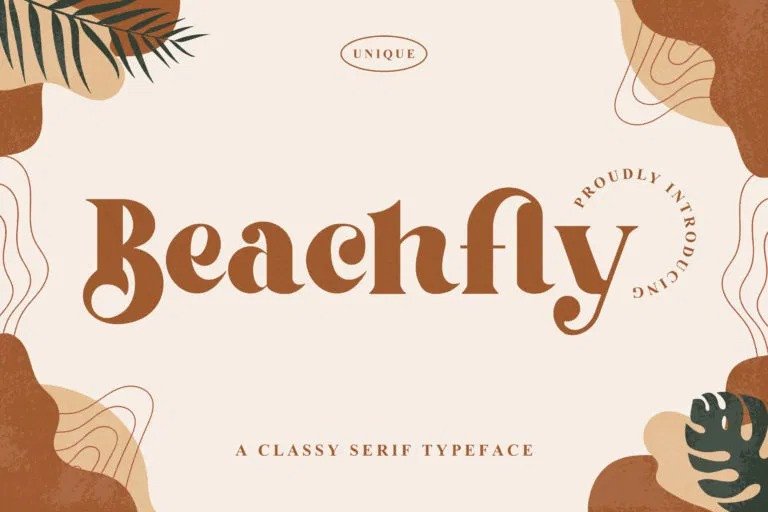
Beachfly Font
Beachfly Serif Font is classy display typeface created by typefactory with serif style that perfect for retro design. It combines a sense of classic, cuteness, elegance and vintage which makes it distinctive enough to give any project life and energy. It’s a gorgeous font which can be used beautifully for wedding invitations, eye-catching social media posts, cute greeting cards and much more.